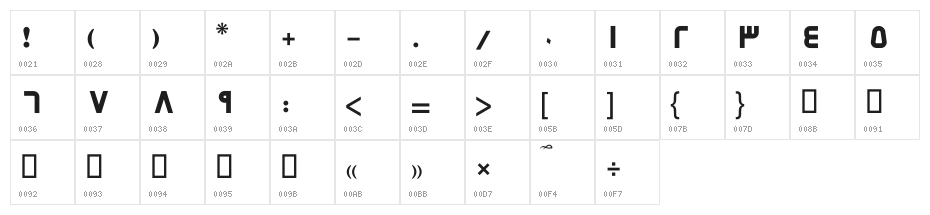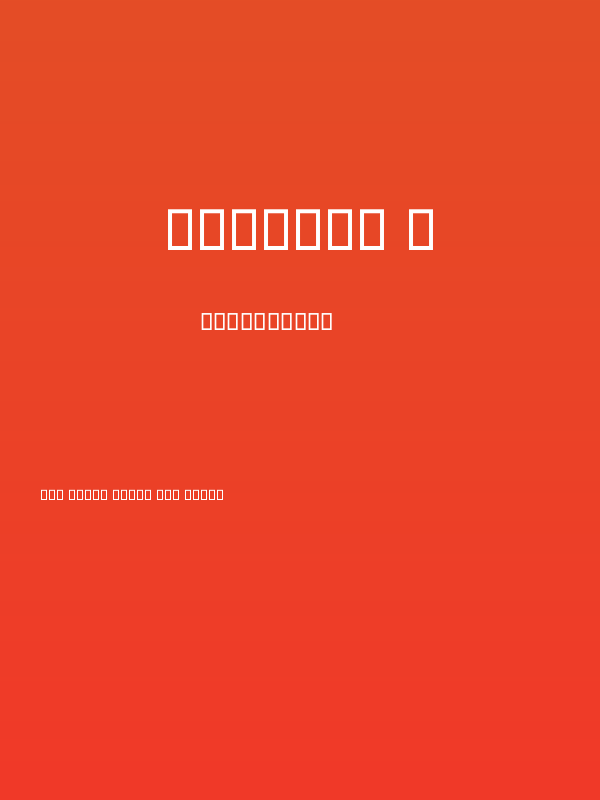
Hirmand I Font
Hirmand I Description
This font exhibits a modern and geometric style, characterized by its bold and clean lines. The characters are designed with a uniform thickness, giving a sense of stability and strength. The uppercase letters are particularly striking, with a blocky appearance that commands attention. The lowercase letters maintain the same geometric consistency, ensuring readability and a cohesive look. The numerals are distinct and easily distinguishable, while the special characters complement the overall design with their simple yet effective shapes. This font is versatile, suitable for a variety of design projects that require a contemporary and impactful aesthetic.
Proposed ProjectsIdeal for branding, headlines, posters, and digital media where a strong visual impact is needed.